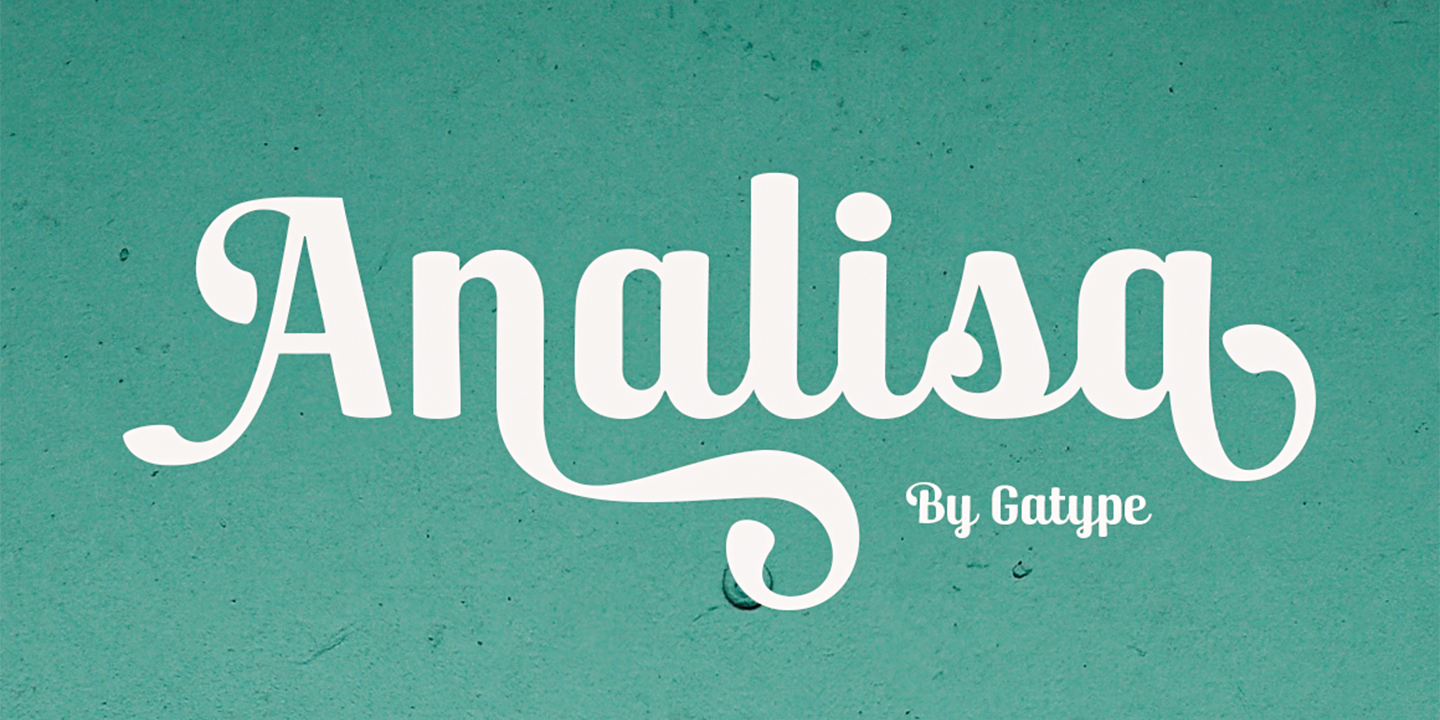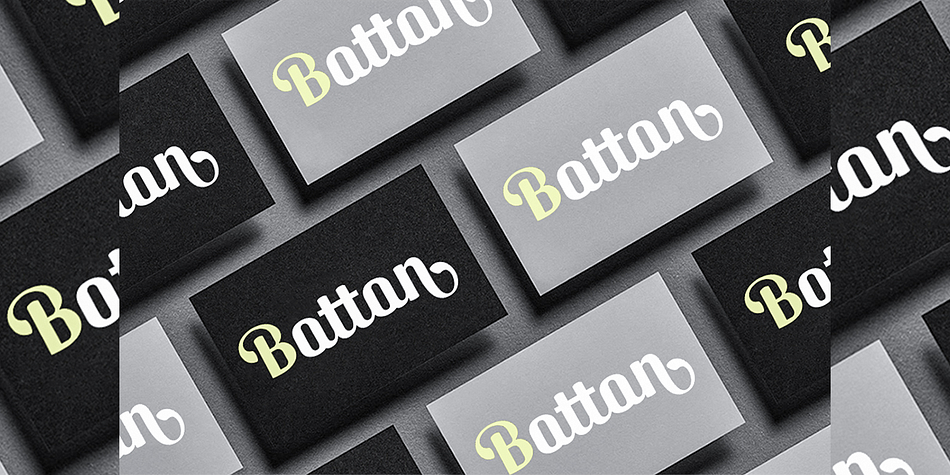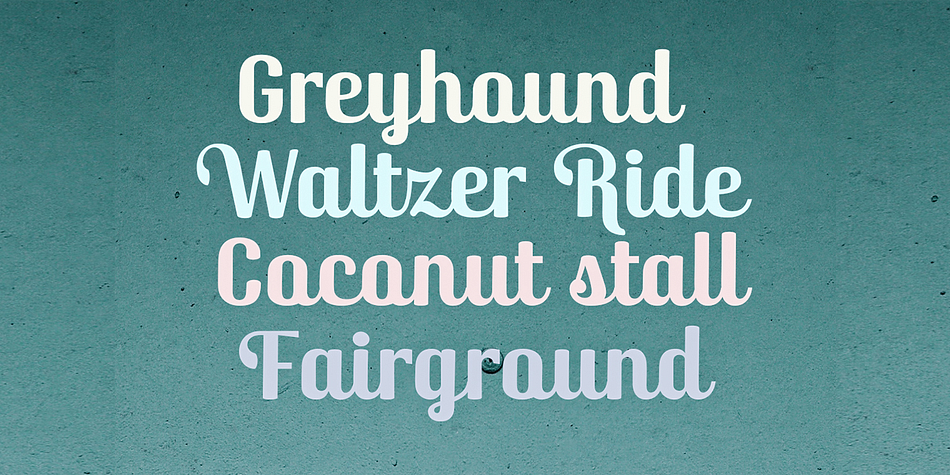
Analisa
Analisa is a display font family published by Gatype.
Analisa is a special modern style font. Crafted with pinpoint accuracy with beautiful curves. With alternate characters and bonds that make your work very special. Analisa is perfect for use in watercolor designs or bold handwriting styles, such as blog headers, branding, t-shirts, Great for branding designs, logos, greeting cards, title packaging, weddings, social media, product design, stationery , advertising, clothing, book covers, business cards, greeting cards, branding, merchandise, handmade invitations and quotes, and more. Immediately use our fonts to make your work more amazing.